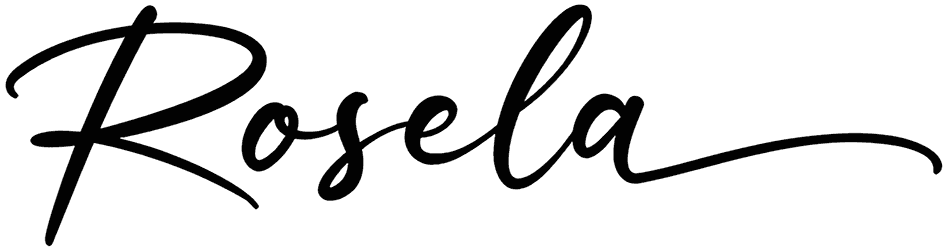
Rosela Font
Rosela is a handwritten font that exudes a cheery disposition, and its characters share this sentiment. This script font offers an exquisite and captivating visual impression, making it an excellent choice for a variety of applications, including fashion, branding, and poster design. Let’s go to our online font library and examine how many other possibilities are available, similar to this one.